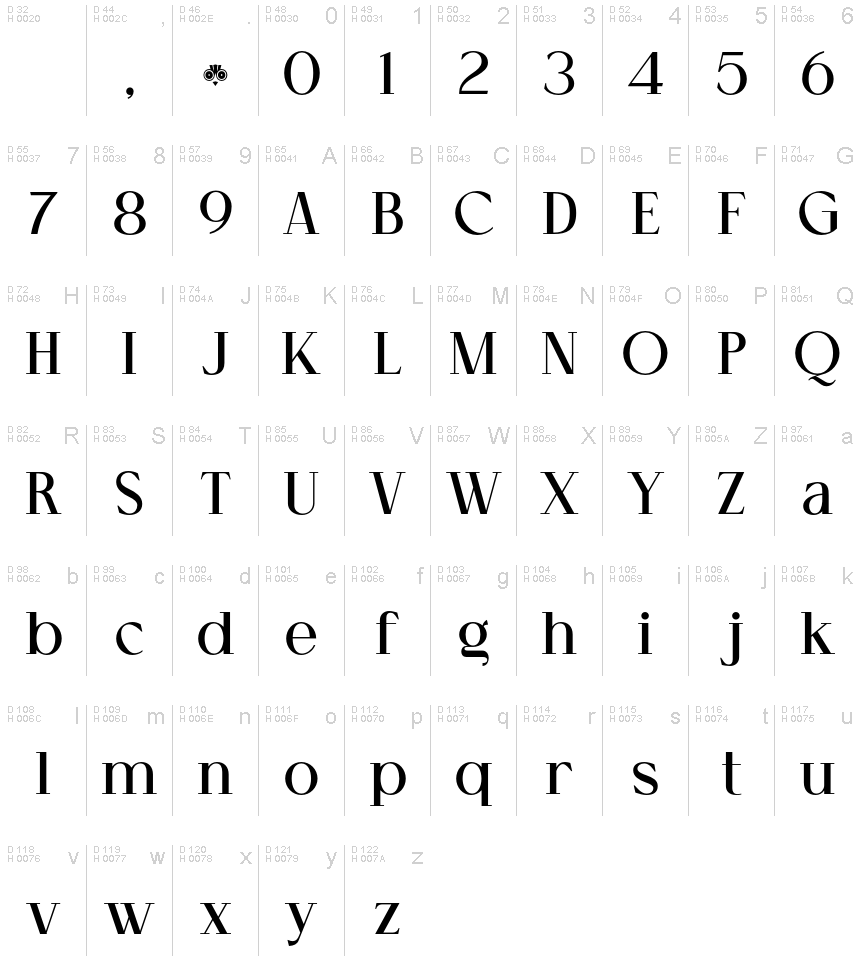
Cellofy SemiBold font, crafted by Owlking Project, is a striking serif typeface from the Cellofy family. Its bold design and elegant curves make it perfect for creating eye-catching headlines and sophisticated branding. This free font harmonizes classic serif features with a contemporary touch, offering versatility in various design contexts.
Ideal for personal use, Cellofy SemiBold stands out in editorial designs and formal invitations, adding an air of refinement. Whether you’re designing logos or crafting digital content, this font provides a visually appealing aesthetic that enhances readability.